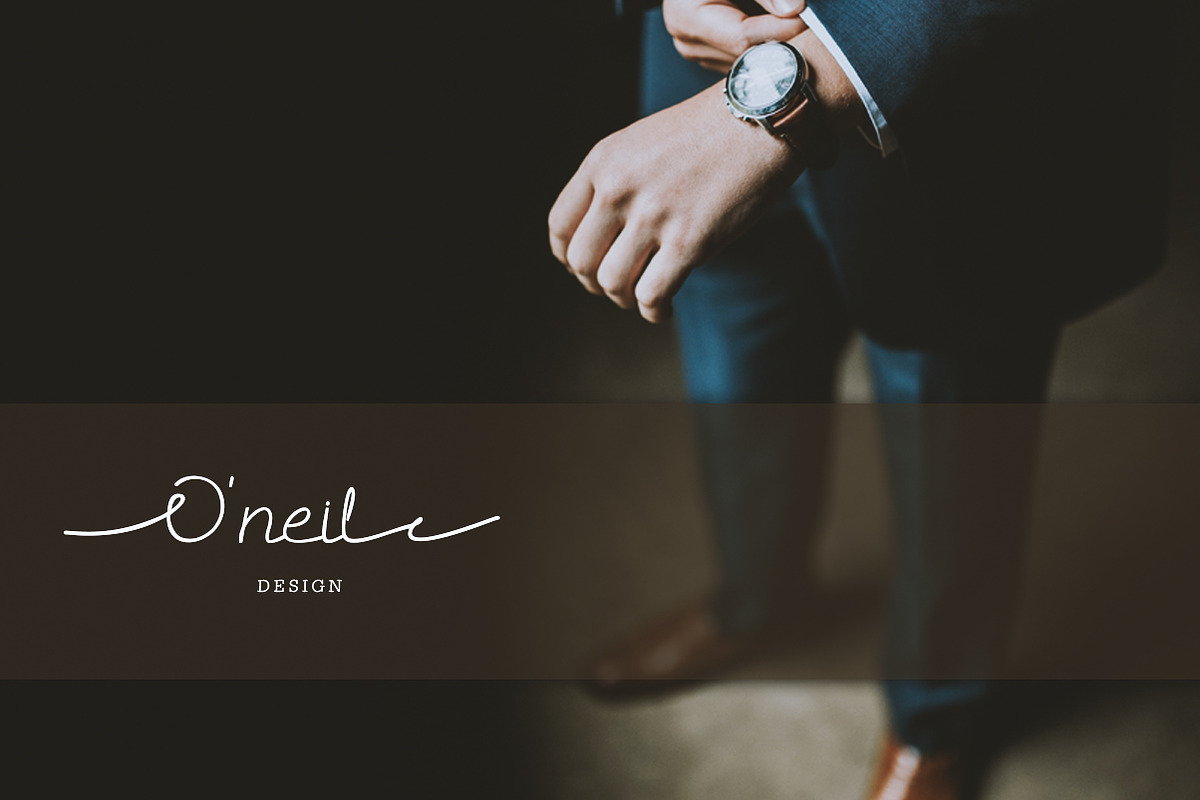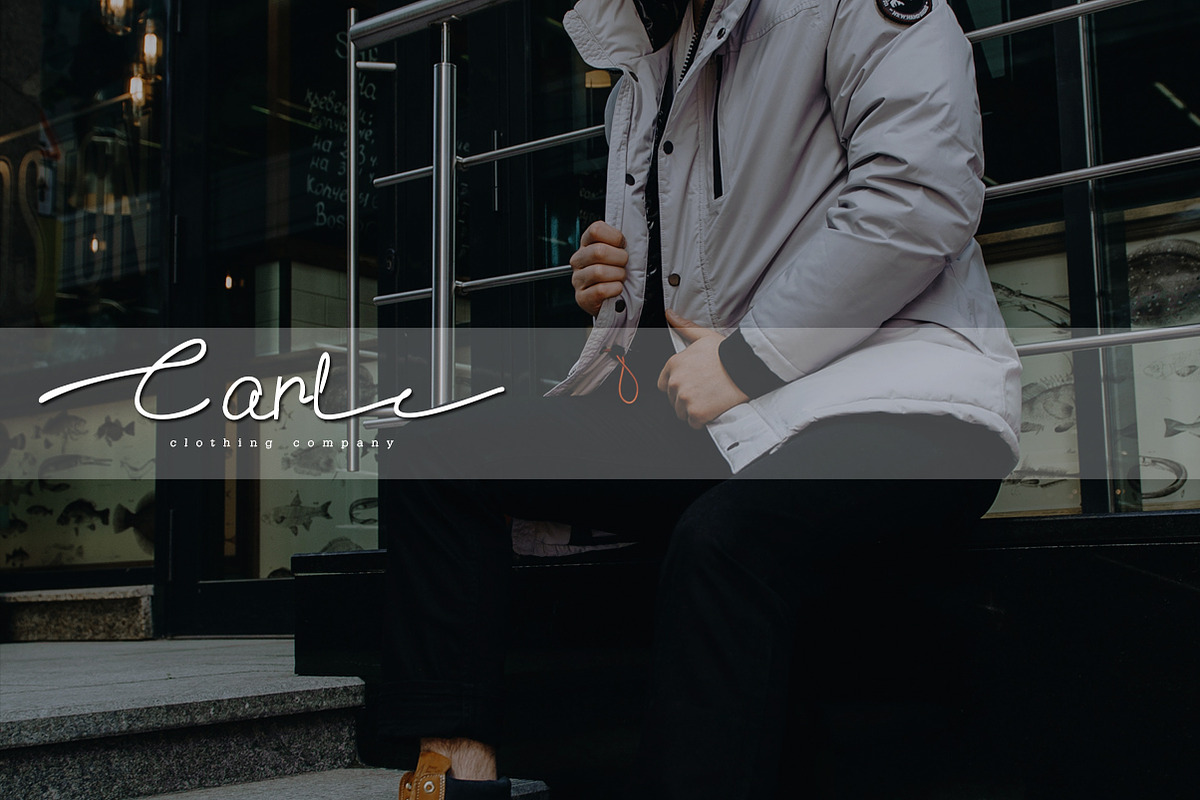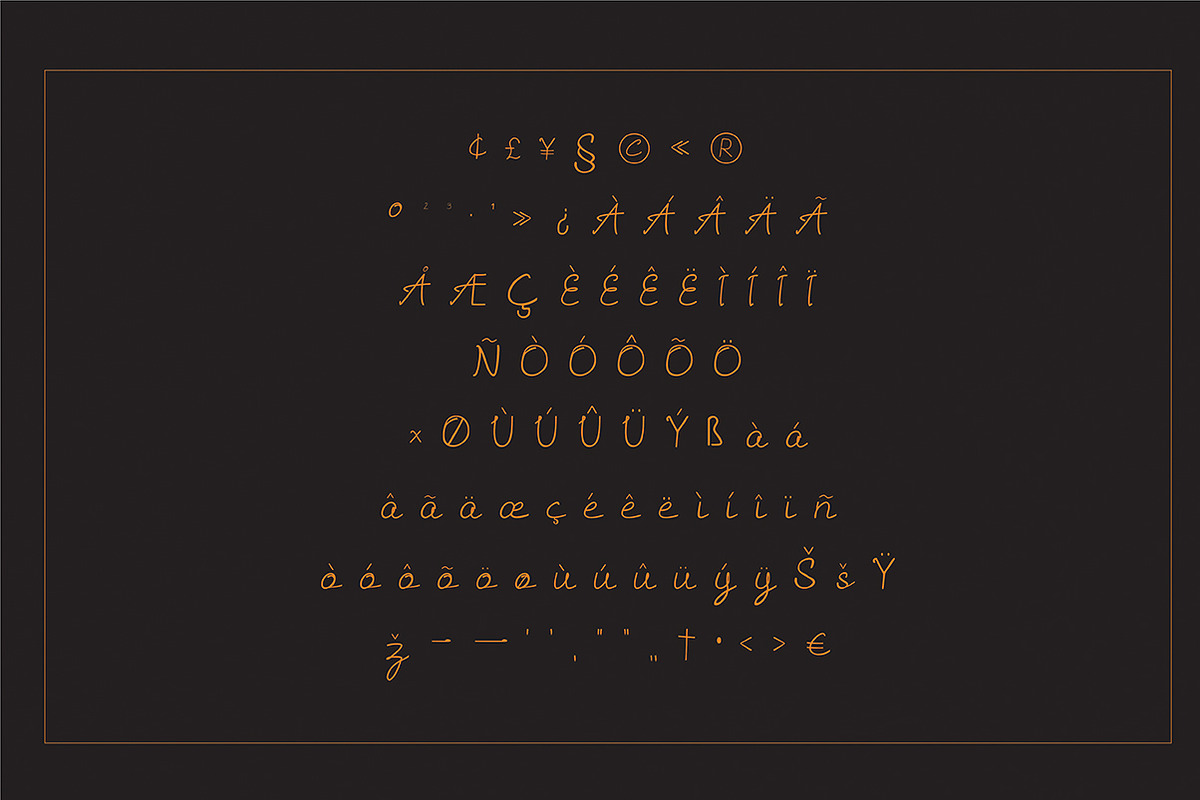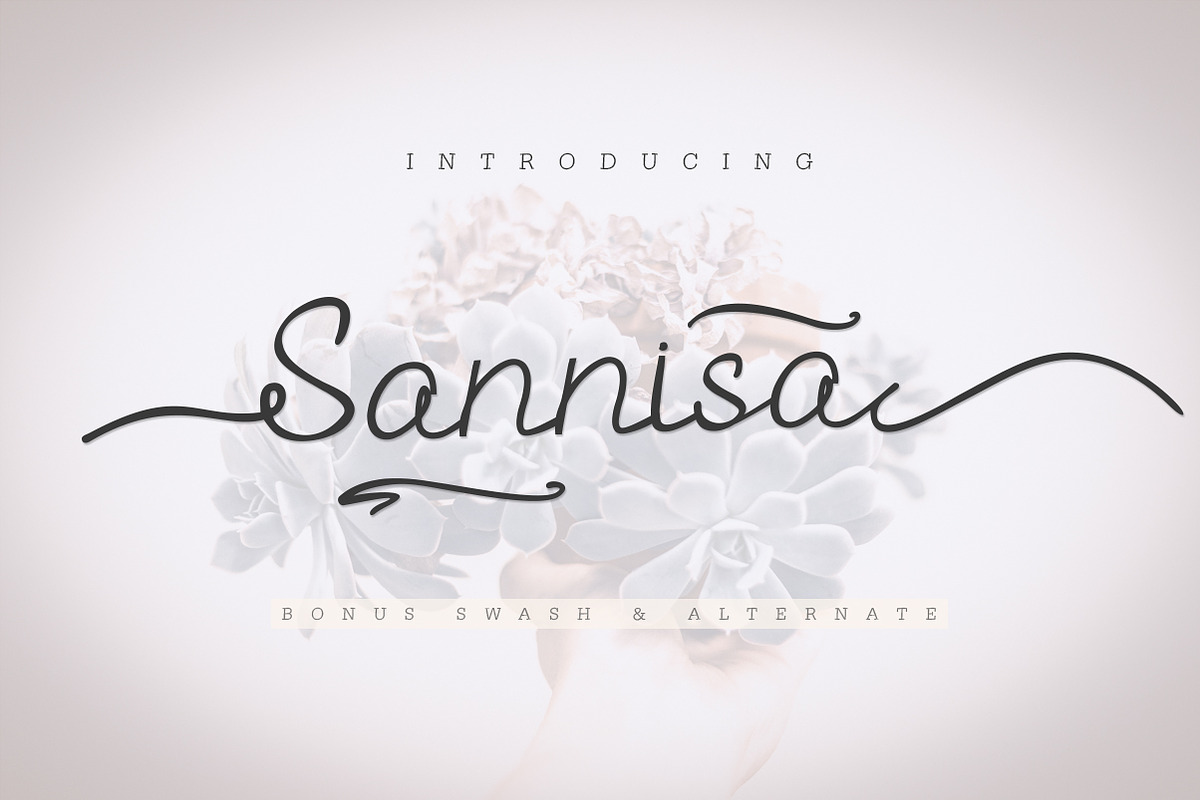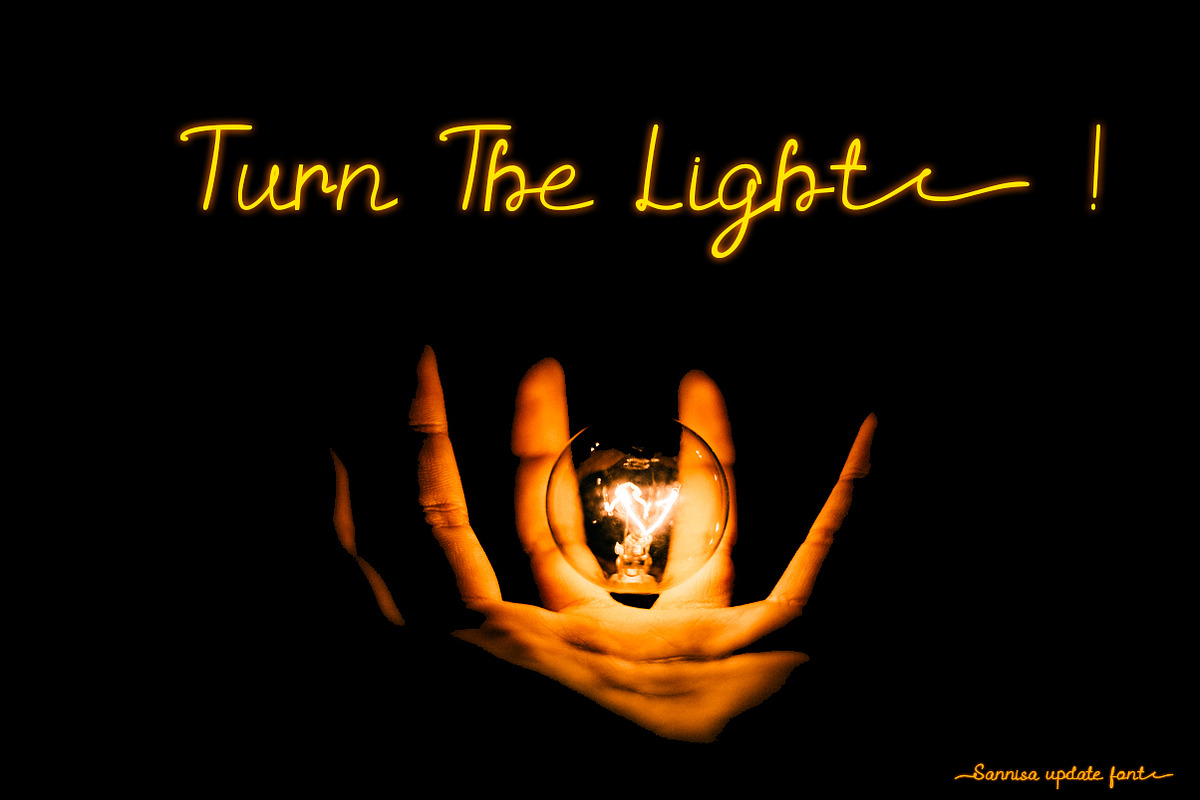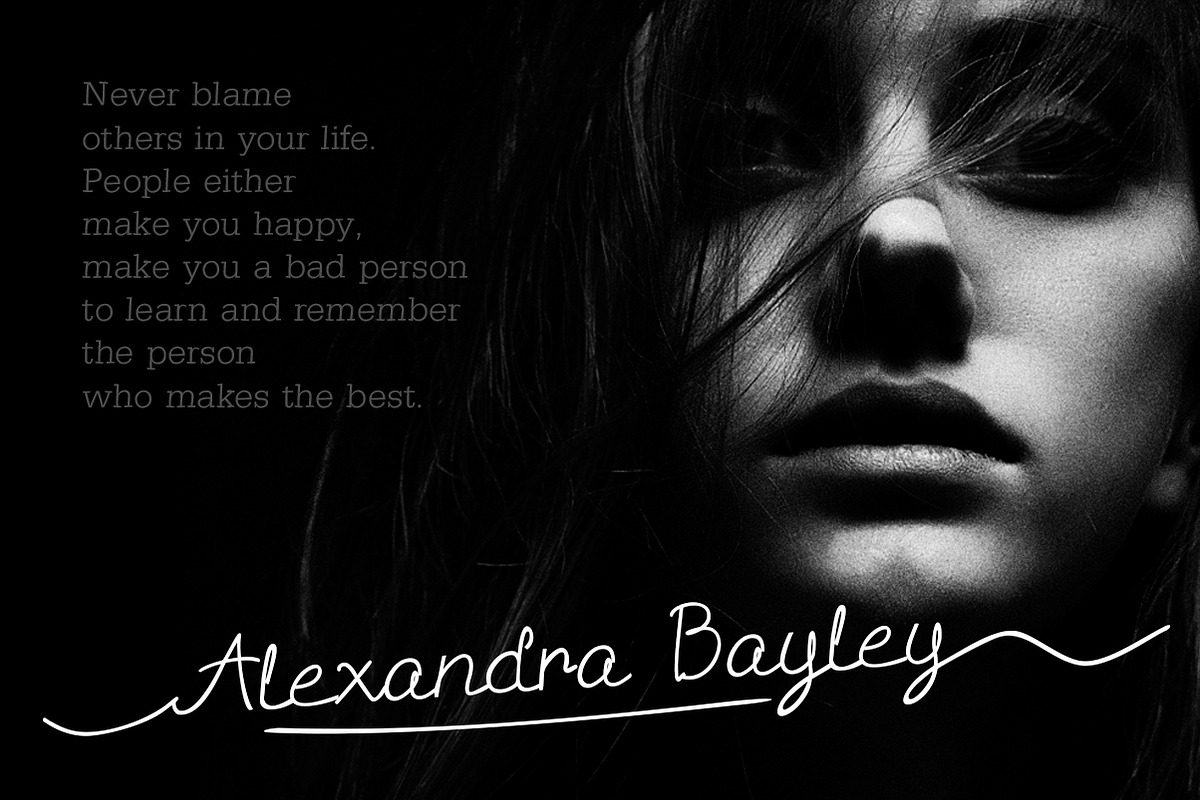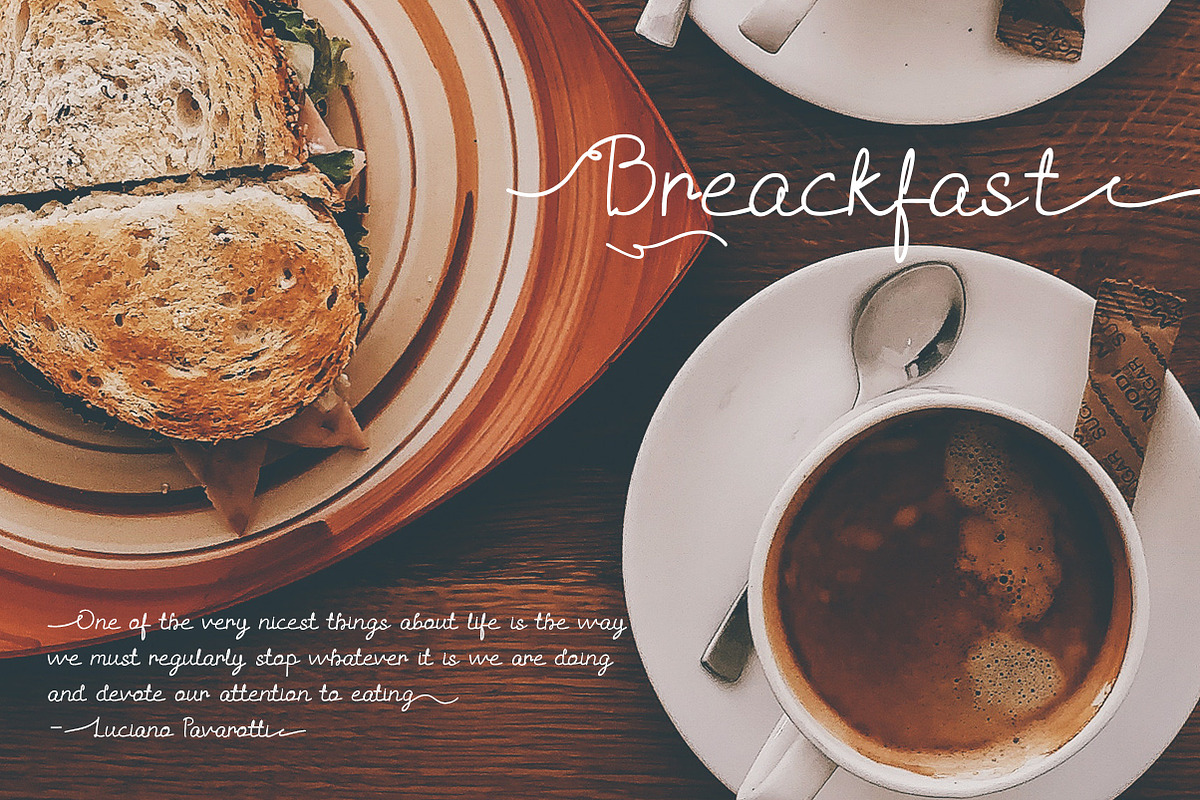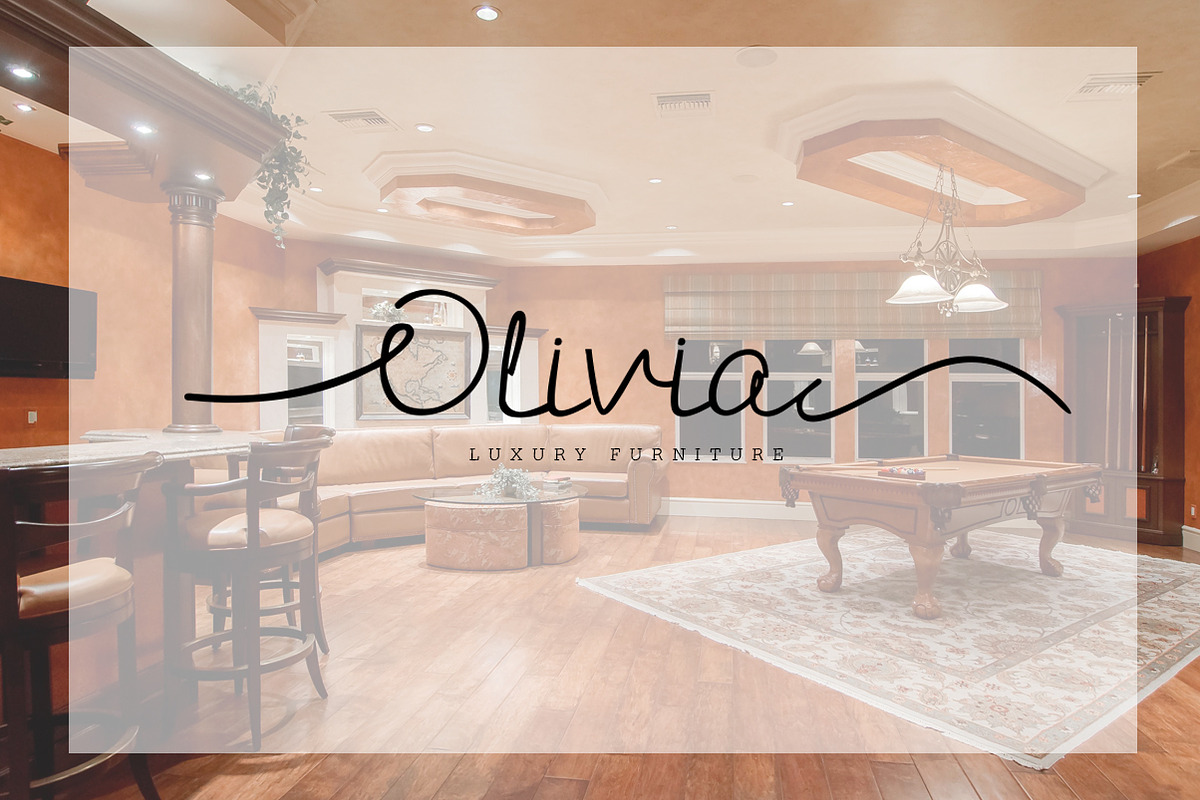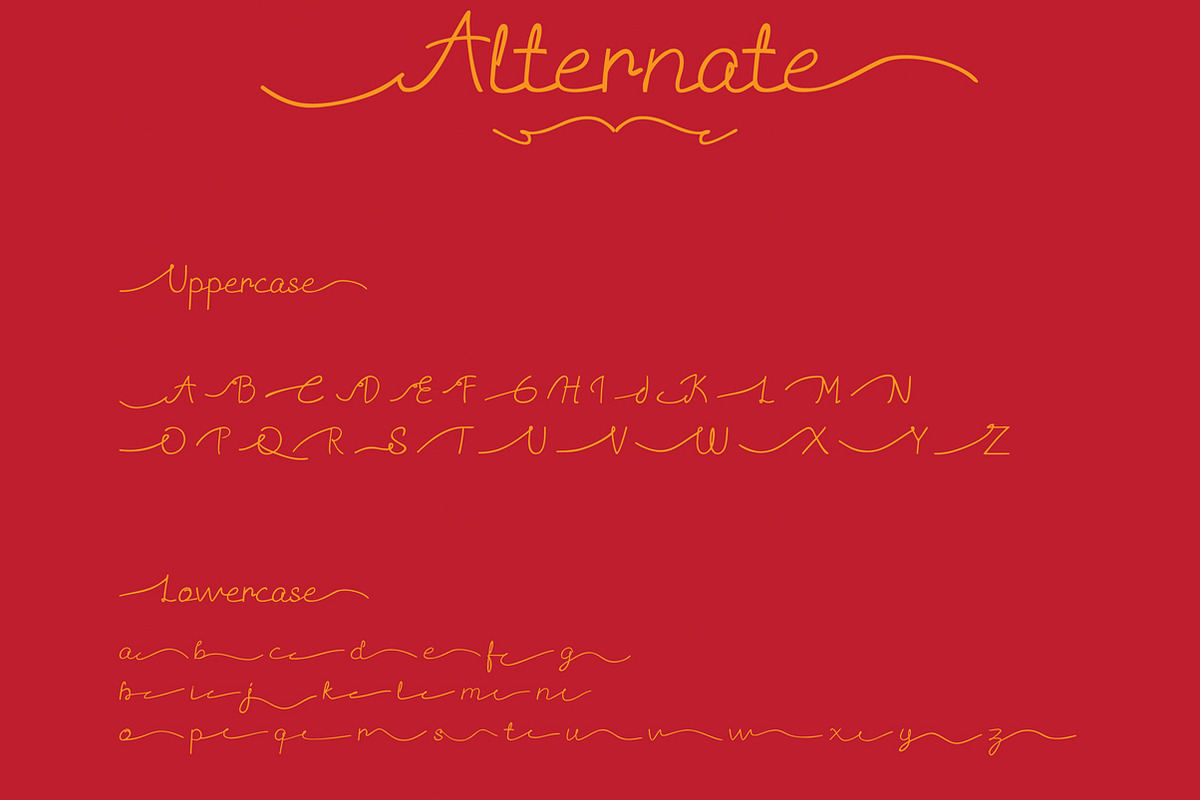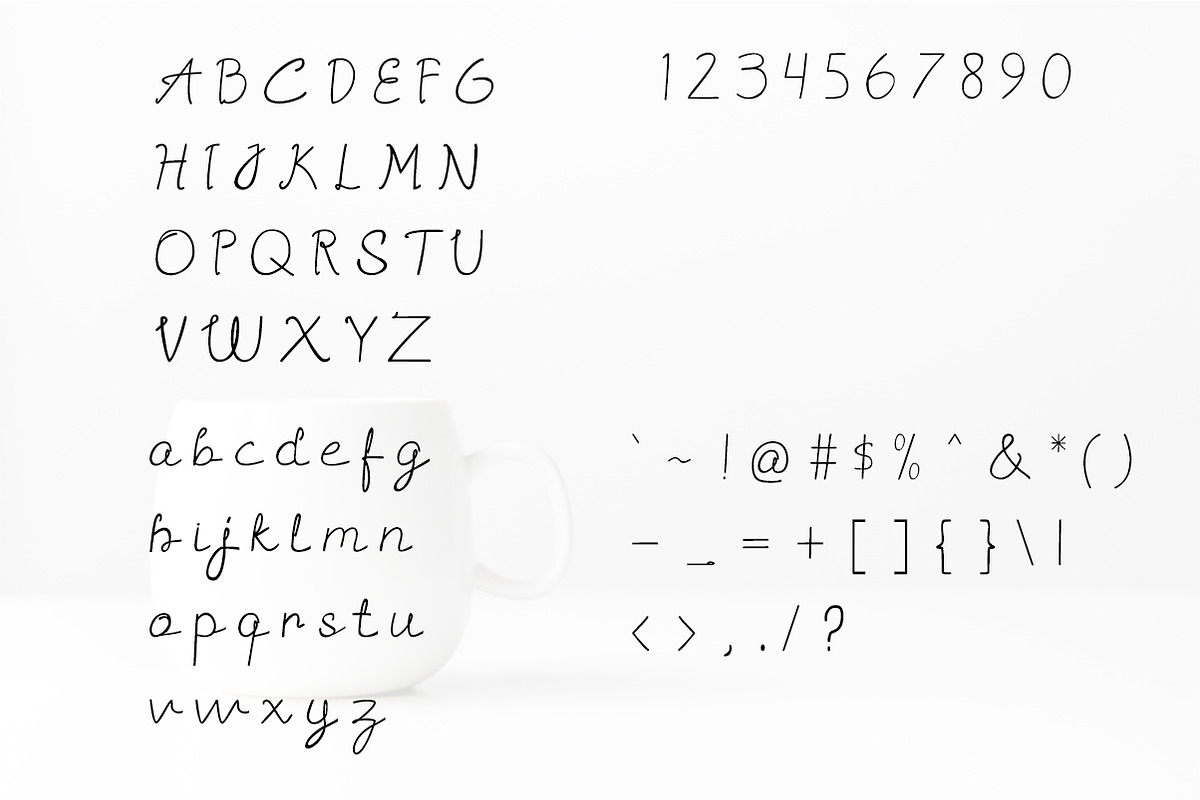
Sannisa Script + Swash (Update)
Sannisa Script update! (27/05/2019).
UPDATE : Add glyph symbols, alternate, and there is a bonus swash inside.
Sannisa was inspired by a simple script of signature. Sannisa is suitable for branding product , magazine script, using in banner, brocure, poster, daily magazine, etc. This font perfect for Branding.